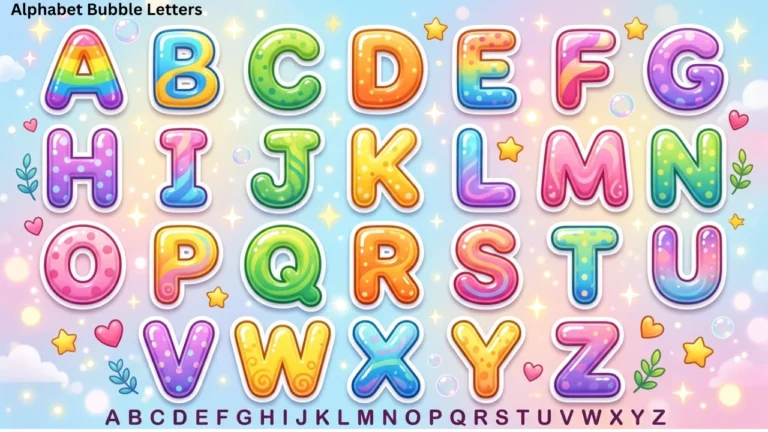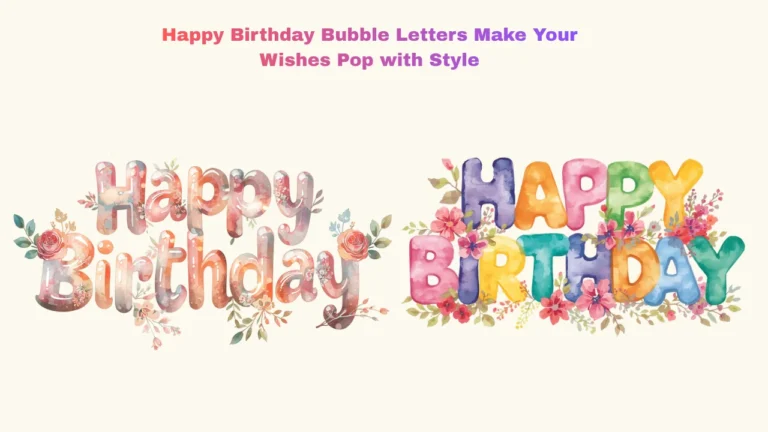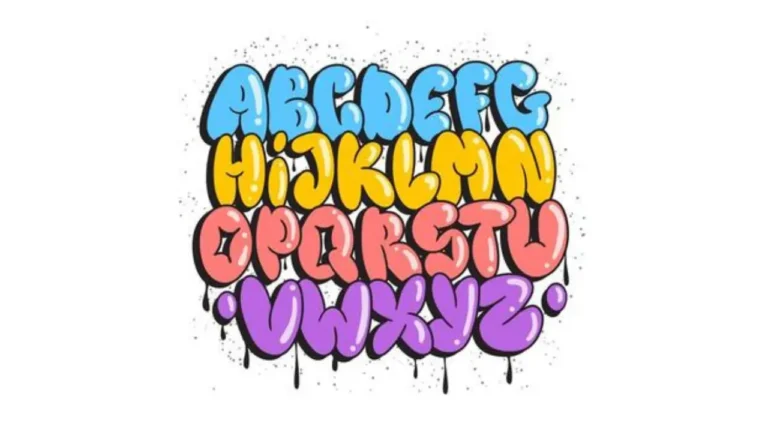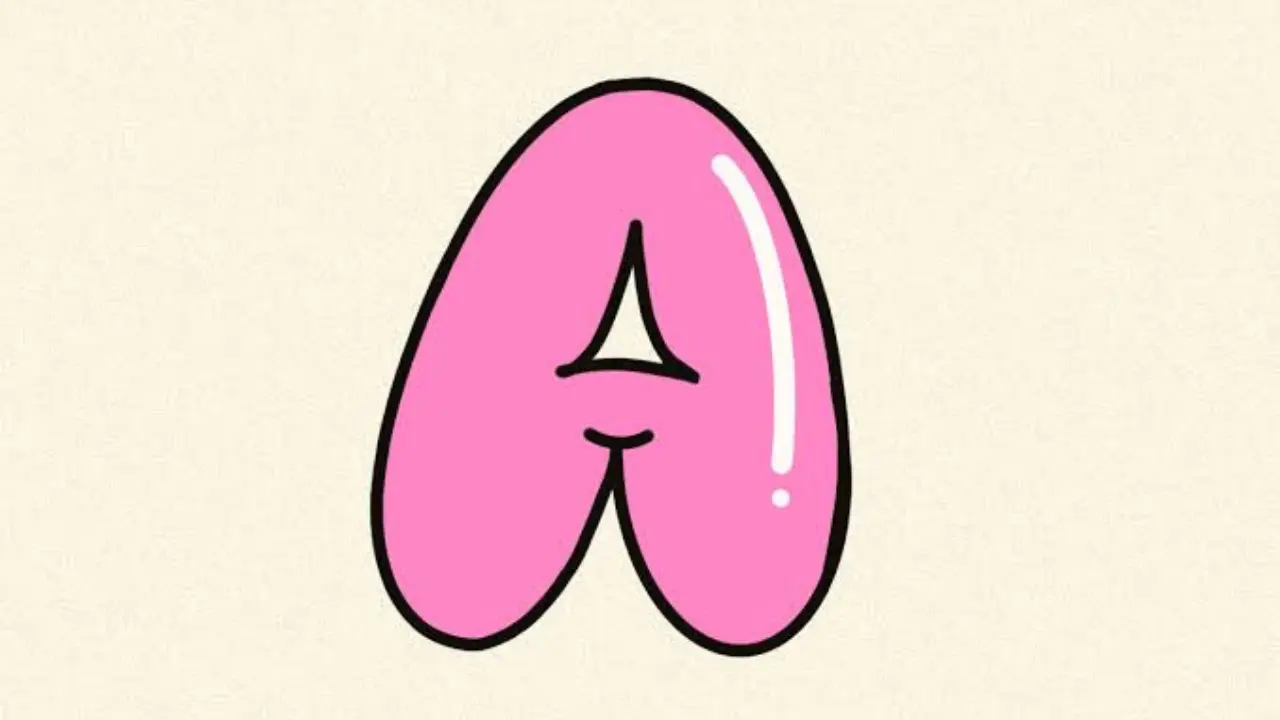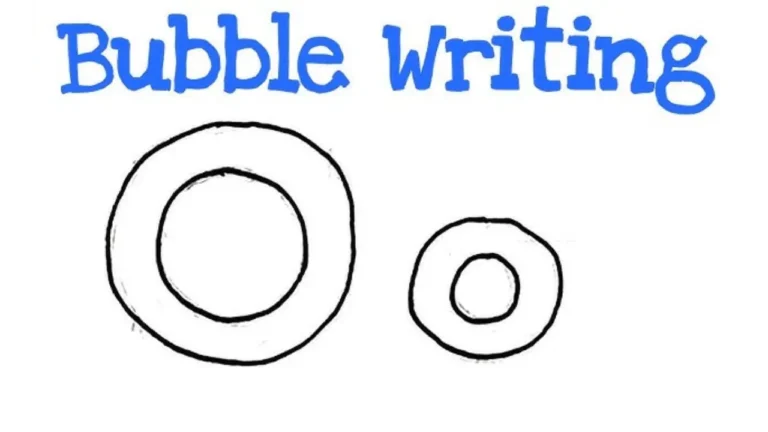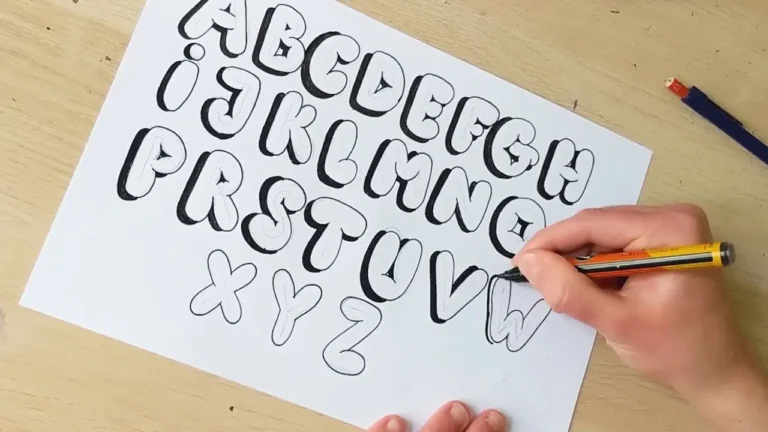
Bubble Letters A Styles, Ideas, and Designs
Bubble letters a is a popular lettering style used in school projects, posters, digital art, notebooks, and creative designs. The rounded shape makes the letter look soft, bold, and playful. Beginners can also learn this style quickly because it does not require advanced drawing skills.
Artists often use bubble lettering when they want words to stand out. The letter A is especially useful because it appears in many names, headings, and decorative designs. With a few simple lines, anyone can turn a normal letter A into an attractive bubble-style character.
What Are Bubble Letters?
Bubble letters are large letters with thick, rounded outlines. They usually look inflated, almost like balloons or soft shapes. Instead of using sharp edges, artists make the corners smooth and curved.
The bubble letters a design keeps the basic structure of the letter A while adding rounded edges around it. You can draw it in uppercase or lowercase form, depending on the style of your project.
| Feature | Bubble Letter Style |
|---|---|
| Shape | Thick and rounded |
| Difficulty | Easy for beginners |
| Best For | Posters, cards, art, notes |
| Coloring | Any color or pattern |
| Tools | Pencil, marker, pen, digital app |
How to Draw Bubble Letters A Step by Step
Drawing bubble letters a starts with a simple letter shape. Use a pencil first so you can easily correct your lines before adding darker outlines.
Start by drawing a large uppercase A lightly on the page. Leave enough space around the letter because you will create a thick outline around the original shape.
Next, draw curved lines around both sides of the A. Avoid making the edges too sharp. The outer lines should look smooth and slightly inflated.
Create the center opening of the letter by drawing a small rounded triangle or oval shape. Then connect the main parts of the letter with a thick horizontal bar.
Once the shape looks balanced, erase the original pencil guide. Trace the final outline with a marker or dark pen to make the letter more visible.
Different Styles of Bubble Letters A
There is no single way to create bubble letters a. Artists can change the shape, thickness, decoration, and colors to create many different looks.
A simple bubble A uses a clean outline without extra decoration. This style works well for beginners and school assignments because it remains easy to read.
A 3D bubble A adds shadows behind the main letter. The shadow creates depth and makes the letter appear as if it is floating above the page.
Graffiti-inspired lettering uses thicker outlines, extra curves, highlights, and bold color combinations. This style can make the letter look energetic and modern.
You can also create cute bubble letters by adding hearts, stars, flowers, smiley faces, or small patterns inside the letter.
Uppercase and Lowercase Bubble Letter A
Uppercase and lowercase designs create different visual effects. An uppercase A normally appears stronger and works well in titles, banners, and large posters.
A lowercase bubble A looks softer and more casual. It works well in notebooks, usernames, scrapbook pages, and decorative writing.
When creating bubble letters a, try both versions before choosing your final design. Different projects may require different shapes and sizes.
Best Tools for Drawing Bubble Letters
You do not need expensive art supplies to create bubble lettering. A pencil, eraser, paper, and black marker are enough for basic practice.
Colored pencils and markers can help you make the design more attractive. Gel pens are useful when you want to add highlights, dots, stars, and other small details.
Digital artists can use drawing apps on tablets, phones, or computers. Digital tools make it easy to resize letters, change colors, add shadows, and correct mistakes.
How to Color Bubble Letters A
Color can completely change the appearance of bubble letters a. Bright colors create a cheerful design, while darker shades produce a stronger and more dramatic look.
You can use one solid color for a clean appearance. Another option is to create a gradient by blending two or more colors from light to dark.
Patterns can also make your design more interesting. Try stripes, dots, checkerboard patterns, stars, hearts, flames, or tiny flowers inside the letter.
Adding a white highlight near one edge creates a shiny effect. A darker shadow on the opposite side can make the letter appear more three-dimensional.
Creative Uses for Bubble Letter A Designs
Bubble lettering works well for both learning and decoration. Students often use these letters for classroom displays, project covers, posters, and handmade cards.
You can also use bubble letters a when creating name art. For example, names beginning with A can feature a large decorative letter at the start.
Too many decorations can also reduce readability. Patterns and details should support the letter rather than hide its basic form.
Final Thoughts
Learning bubble letters a is a simple and enjoyable way to improve creative lettering skills. You can start with a basic outline and gradually experiment with colors, shadows, patterns, and 3D effects.
Regular practice will help you create smoother shapes and more balanced designs. Whether you use bubble lettering for schoolwork, posters, digital graphics, or personal art, the letter A offers many creative possibilities.